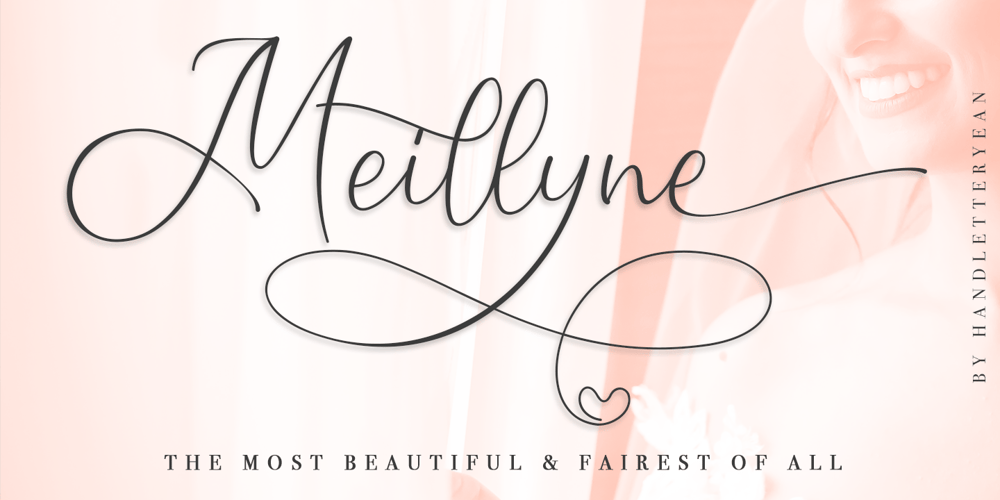
Meillyne
Meillyne font
Meillyne Font Family was designed by Yean Aguste and published by HandletterYean. Meillyne contains 4 styles and family package options. Meillyne is a truly gorgeous and magical script with a unique calligraphic style.. Fall in love with its gorgeous swashes, alternate characters, and add a decorative touch to any project in an instant.Check out our font collection for more great and artistic fonts. Pick your most favorite font and use it as you like to reach your goals.To access the alternate glyphs, you need a program that supports openType features such as Adobe Illustrator CS, Adobe Photoshop CC, Adobe Indesign and CorelDraw.More information about how to access alternate glyphs, check out this link: http://goo.gl/ZT7PqK